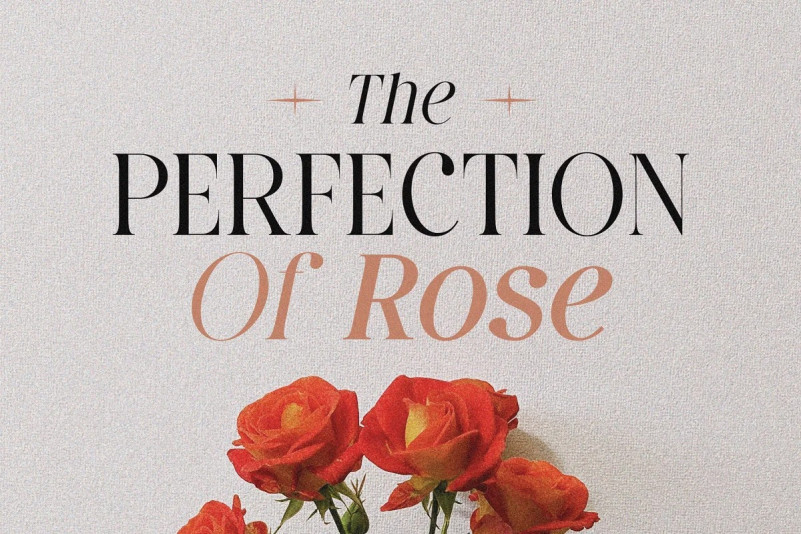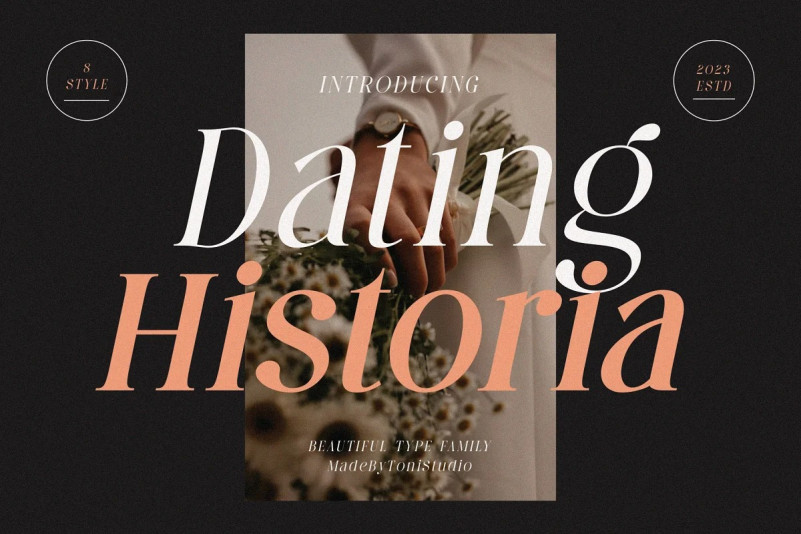
Dating Historia Font
Dating Historia Serif font family, consisting of regular and italic versions with eight types. allows for a very sophisticated and contemporary typographical approach. It comes in various levels of integrated Condensed forms to create interesting effects. With a choice of typefaces to match any design, it adds contrast and impact to your type designs.